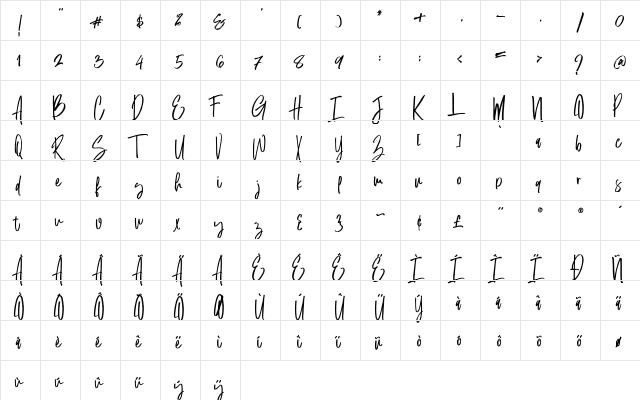
dust in the wood Regular
Design Context for dust in the wood Typeface
dust in the wood echoes the hand-painted signage and woodblock typography of the American frontier, with a warm, rugged personality.
Perfect for barbecue restaurants, country music branding, vintage poster design, and rustic packaging.
Font Pairing: Combine dust in the wood with a simple slab or neutral sans — period-accurate companions reinforce the vintage feel without competing for attention.
Pro Tip: Pair dust in the wood with aged textures or distressed backgrounds to amplify its vintage personality.